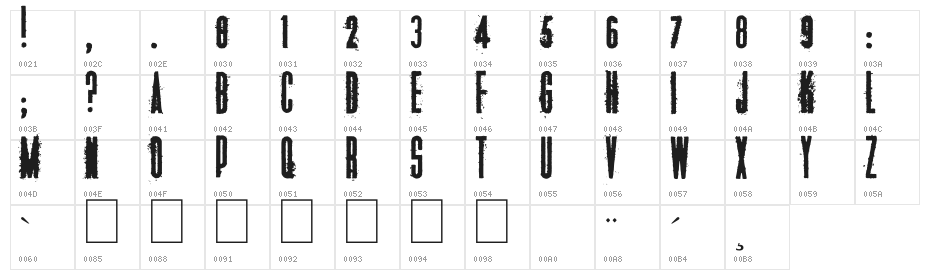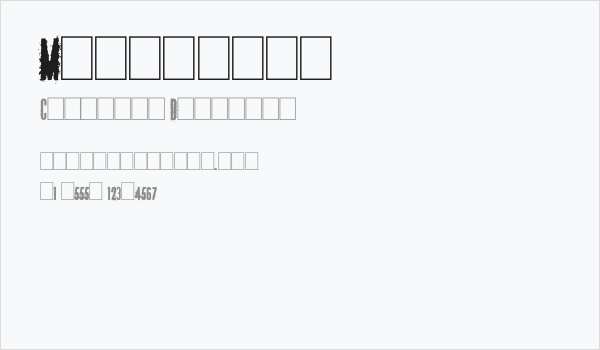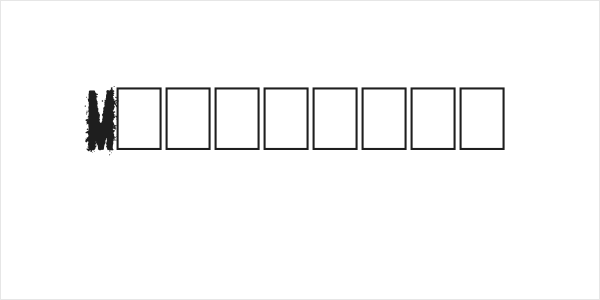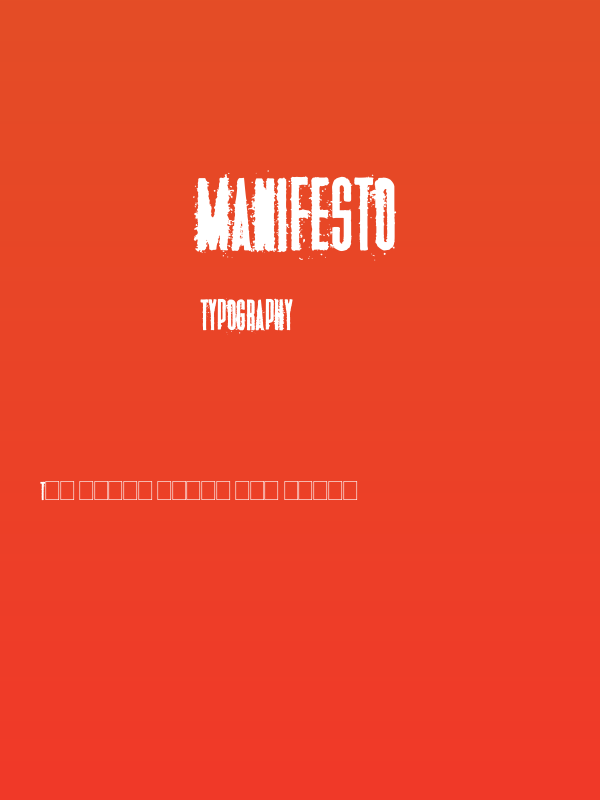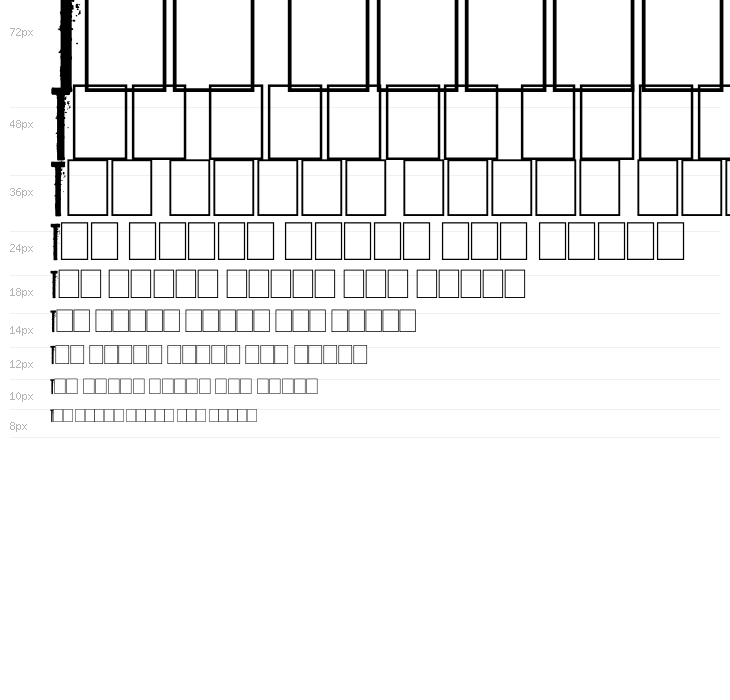
Manifesto Font
Manifesto Description
This font exhibits a bold and distressed style, characterized by its grunge and textured appearance. The letters are tall and narrow, with a condensed width that gives a striking and impactful look. The distressed texture adds a rugged, worn-out feel, making it ideal for projects that require a raw and edgy aesthetic. The uppercase and lowercase letters maintain a consistent style, while the numbers and special characters follow the same distressed theme. This font is perfect for creating attention-grabbing headlines, posters, and designs that aim to convey a sense of urgency or rebellion.
| Overall Style | Grunge, Edgy |
| Use Case | Headlines, Posters, Urban Art |
| Proposed Projects | Ideal for posters, album covers, rebellious-themed designs, and urban art projects. |